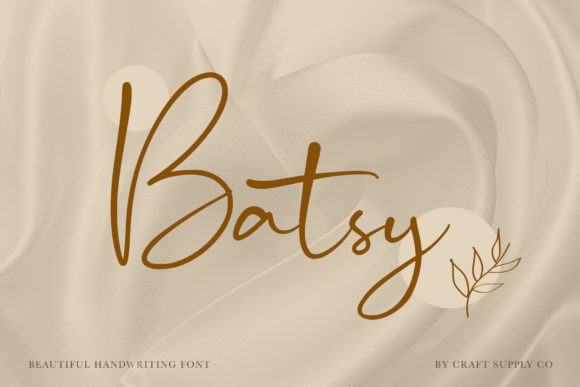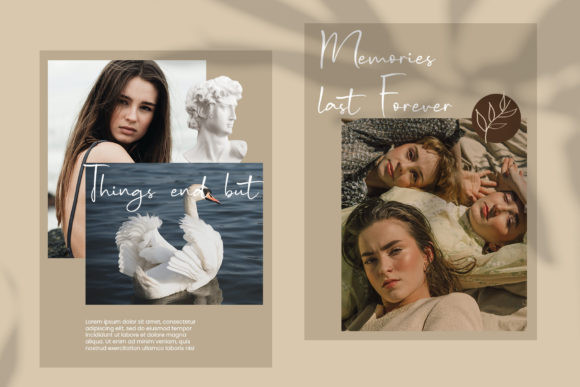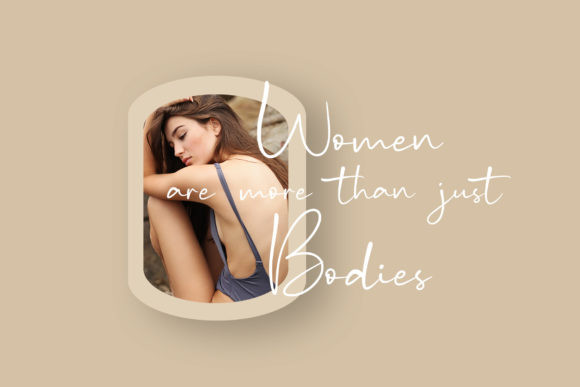
Batsy Font
Batsy is a sweet and friendly handwritten font. Its natural and unique style makes it incredibly fitting for a large pool of designs. The only limit is your imagination!